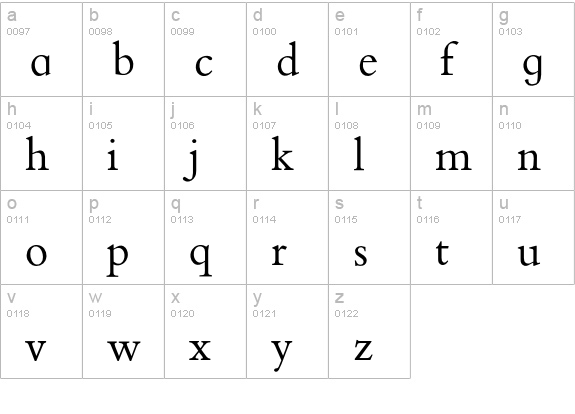
BootsBemboRoman font is a timeless and elegant typeface that exudes sophistication and classic charm. With its graceful serifs and clean lines, this font is perfect for adding a touch of refinement to any design project. Whether you are creating invitations, branding materials, or editorial pieces, BootsBemboRoman font will elevate your work to new heights. The best part? BootsBemboRoman font is available for free download at FontsMarket.com. Now you can access this premium font without breaking the bank, making it the perfect choice for designers on a budget. Don't miss out on the opportunity to enhance your designs with the beauty and versatility of BootsBemboRoman font. Download it today and take your projects to the next level.